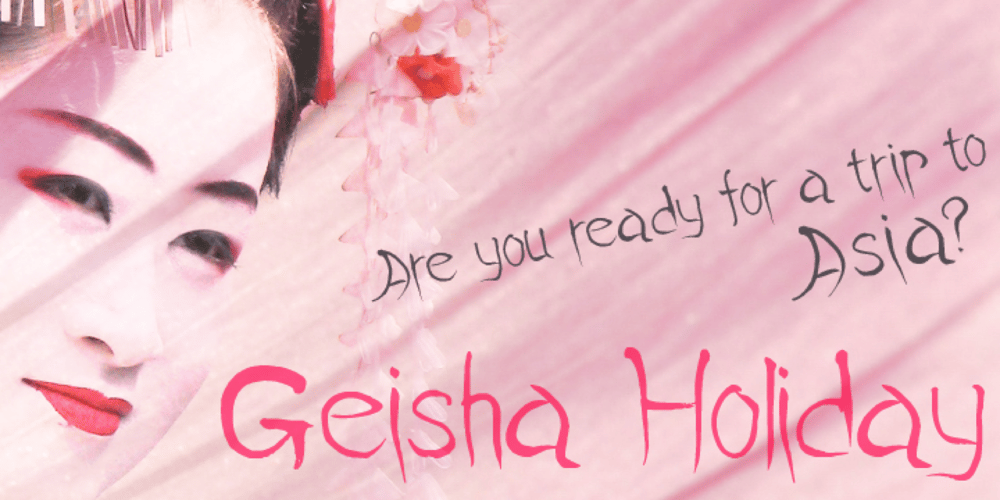
Geisha Holiday Font Family was designed by Natsuko Hayashida and published by Okaycat. Geisha Holiday contains 1 styles and family package options. Geisha Holiday is an urban font with a unique look. The letters express slightly the formalized strokes of kanji characters but the overall tone is relaxation. Enjoy the laid back, modern, and distinctive style of Geisha Holiday. Geisha Holiday is extended, containing West European diacritics and ligatures, making it suitable for multilingual environments and publications.